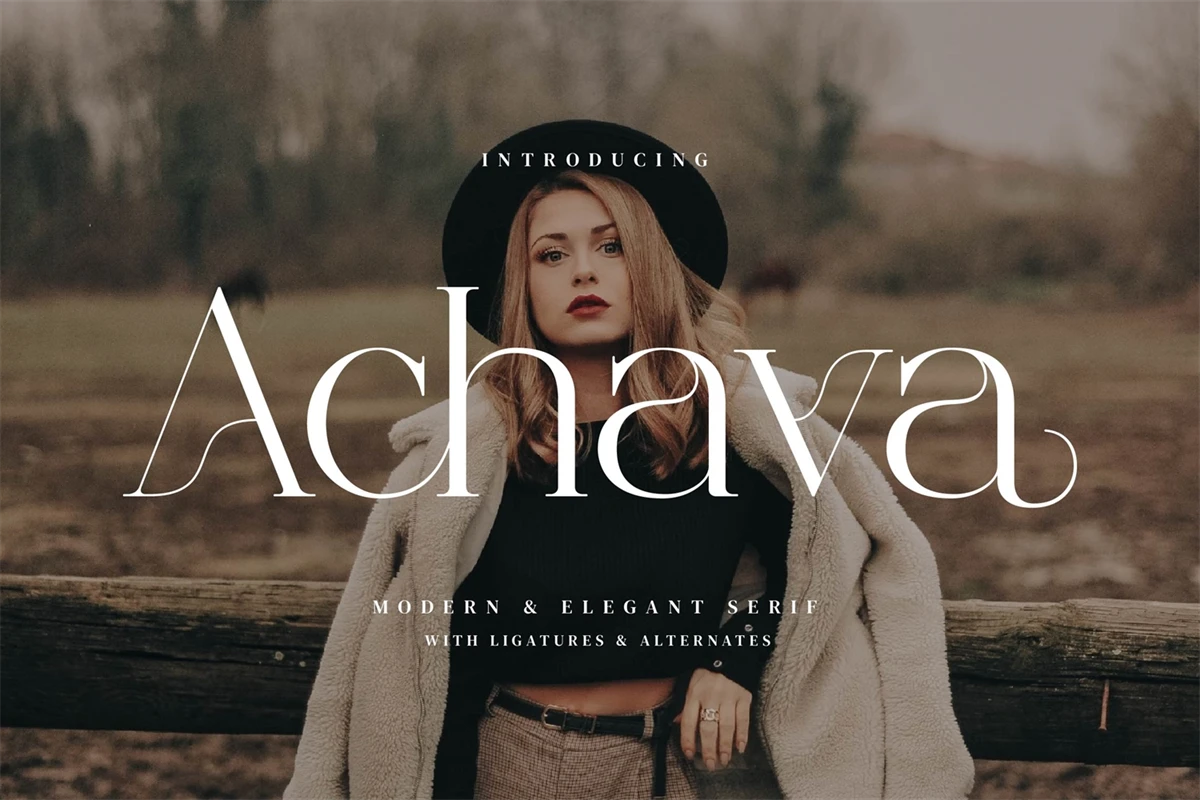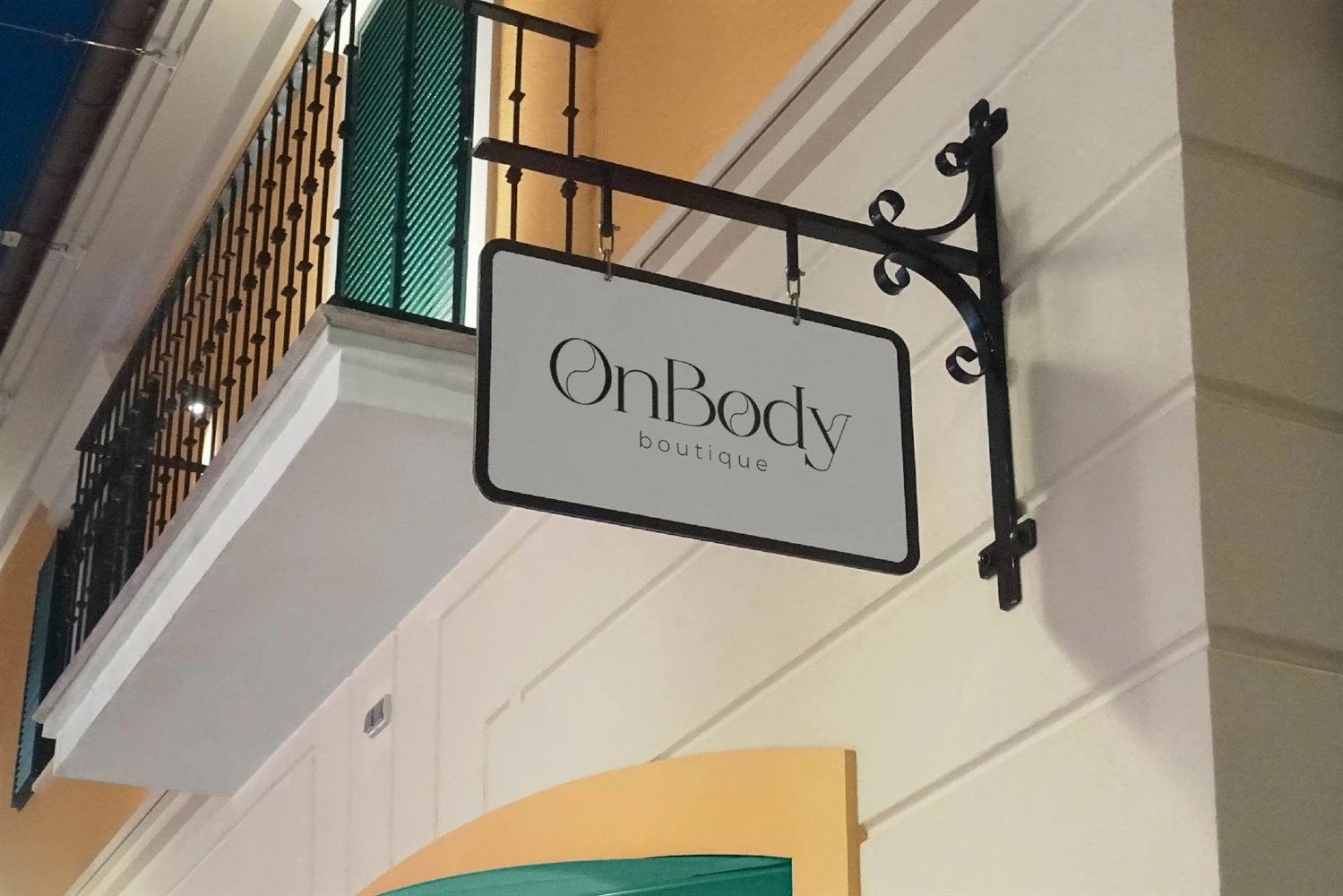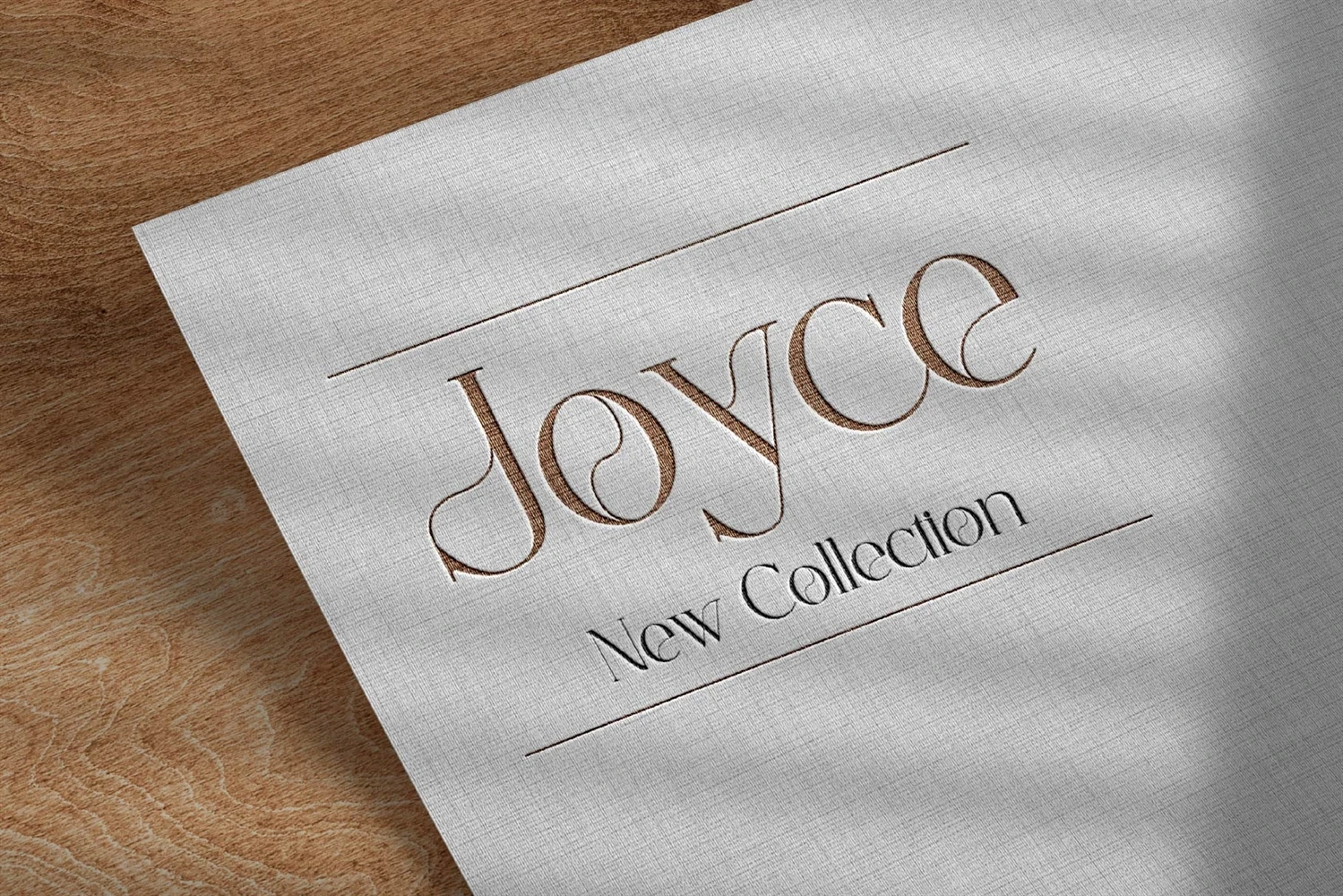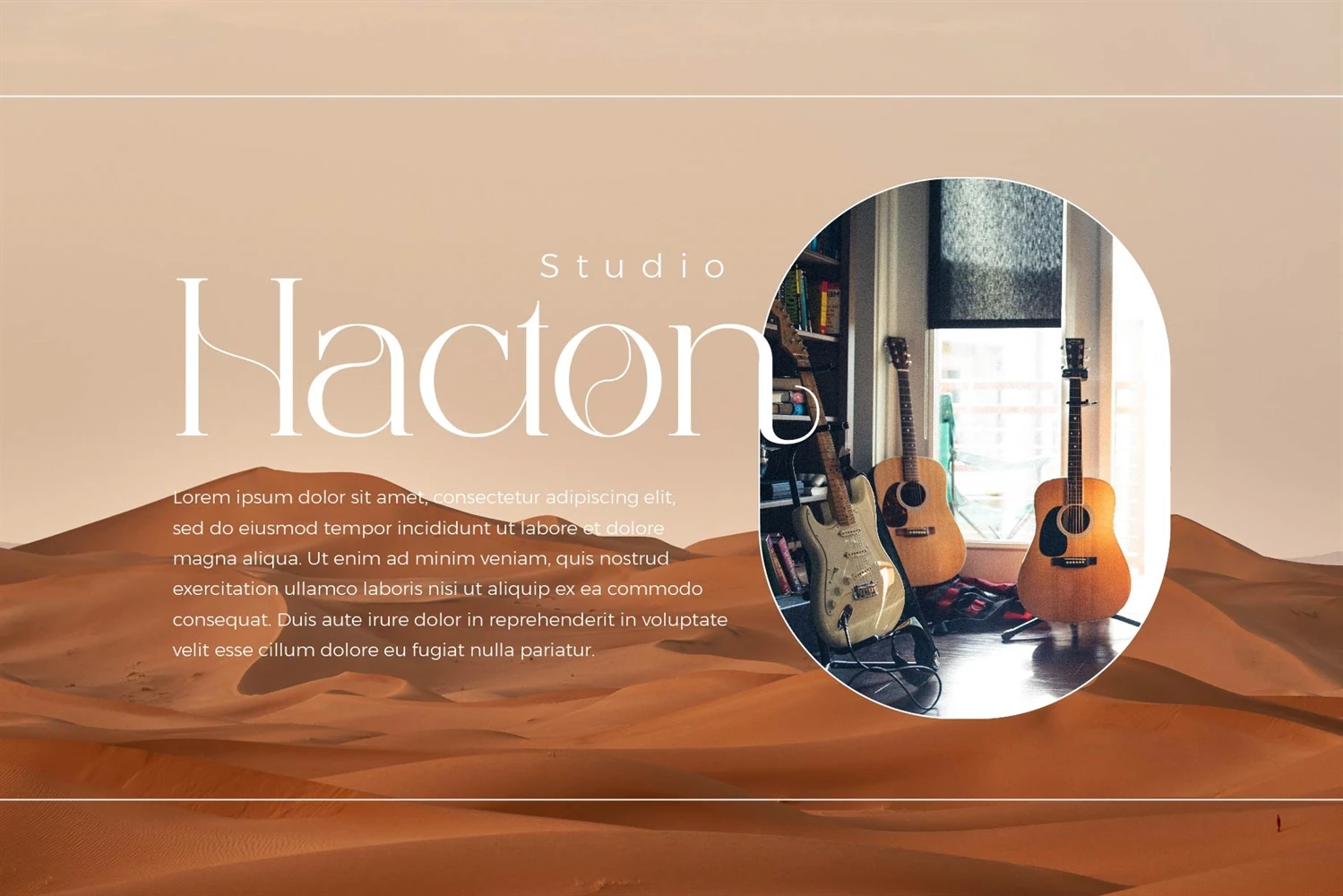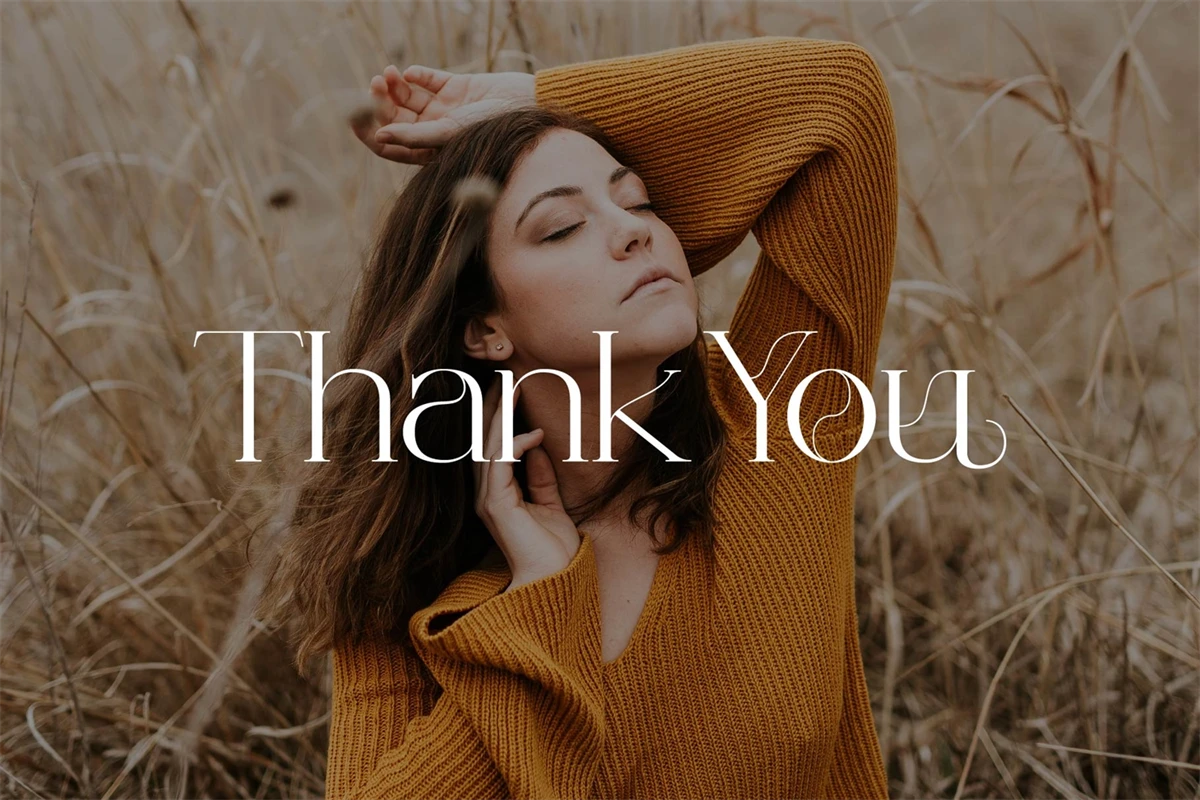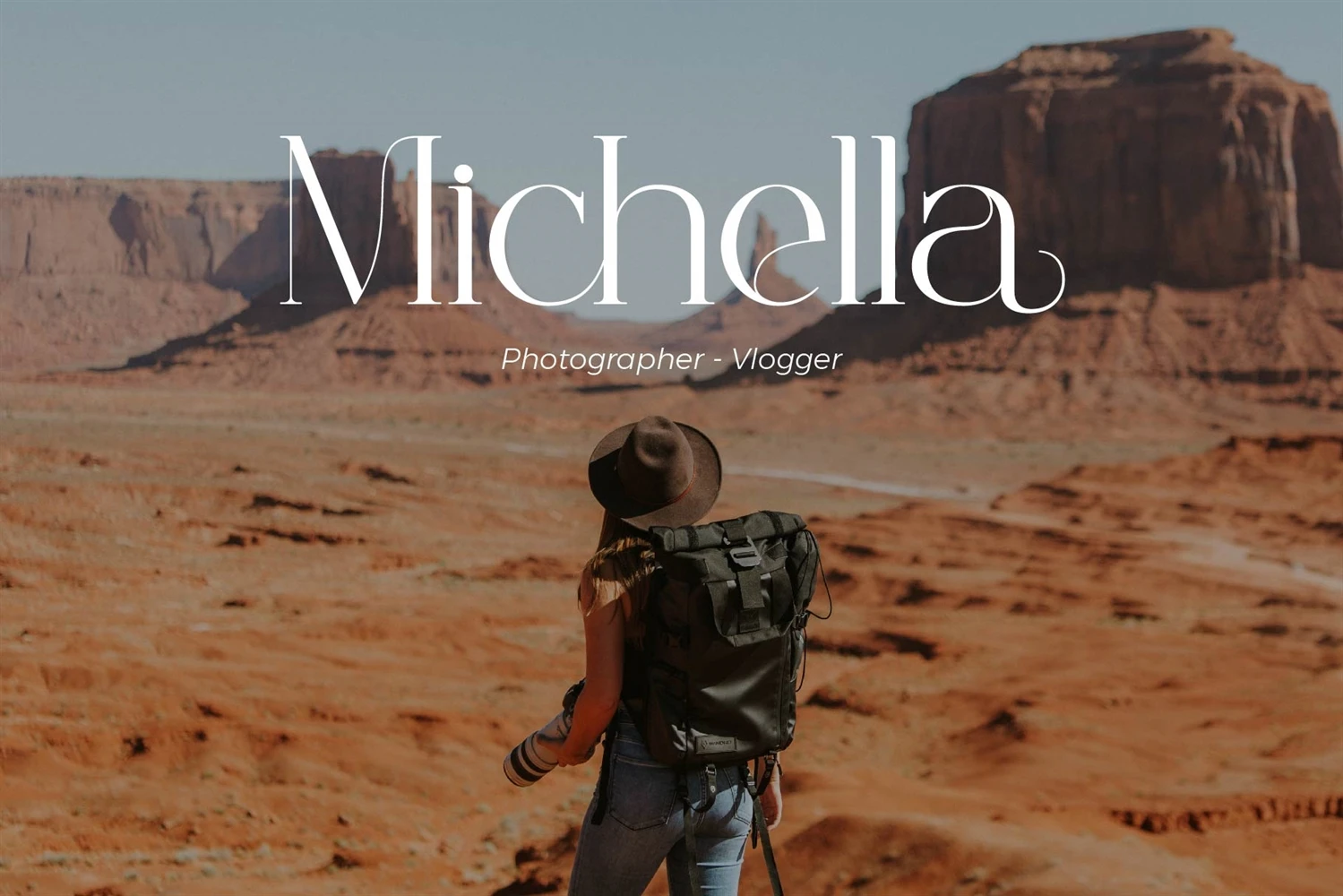
Achava Stylish Ligature Typeface, inspired by the famous minimalist logo perfect for the purposes of designing templates, brochures, videos, advertising branding, logos and more.
- Ligatures